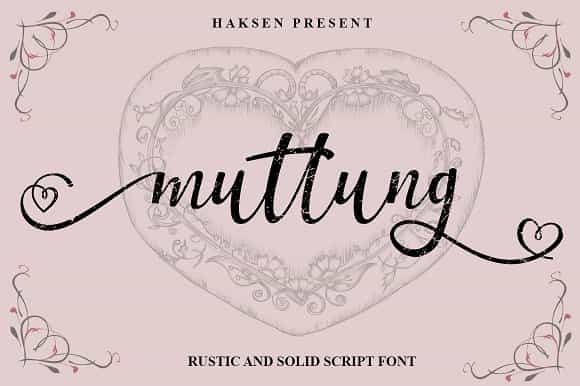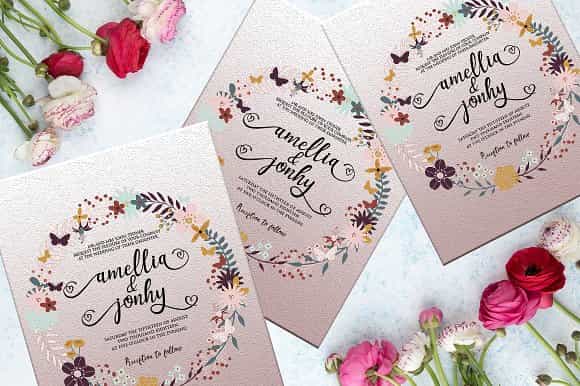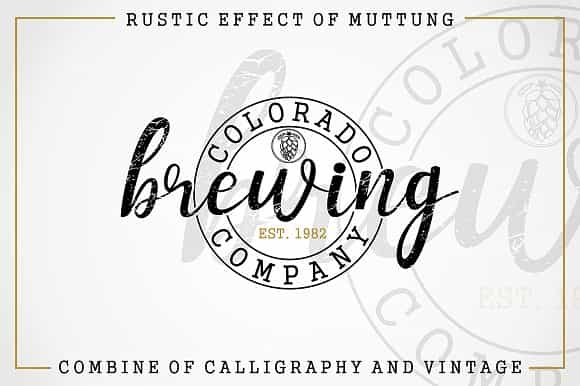
Dear Font Lovers , I’m really glad to inform You and of course introduce my New Bundle Collection Font with the name Muttung. Muttung is beauty font script with more than 40 glyps of alternate to provide beauty types.